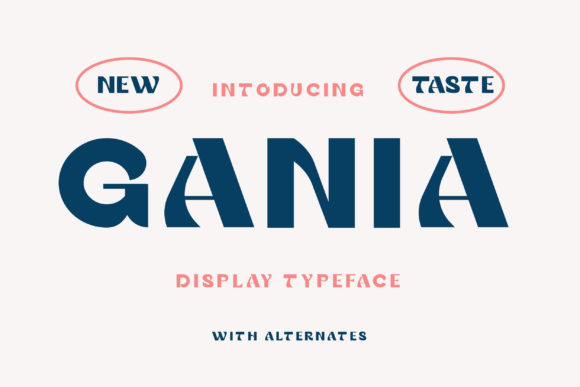
Prepare to be mesmerized by Gania Display, the font that shatters the boundaries of ordinary typography. This captivating display font is a symphony of modern aesthetics and vintage charm, effortlessly commanding attention and leaving an unforgettable impression. Its meticulously crafted curves evoke a sense of elegance and sophistication, while its bold presence exudes strength and confidence.
Immerse yourself in the boundless creative possibilities that await with Gania Display. From striking logos and captivating posters to alluring social media posts and captivating website designs, this versatile font seamlessly adapts to your every need. Let your imagination soar as you witness your designs transformed into captivating masterpieces.
Crafting captivating designs has never been simpler. Gania Display's PUA encoding grants you effortless access to a treasure trove of glyphs and swashes, empowering you to unleash your creativity without limits. Unleash your inner artist and weave a tapestry of visual delight, where every letter dances with grace and charm.
Gania Display beckons you to embrace a world where typography transcends the ordinary, a world where your designs radiate brilliance and leave an indelible mark on the hearts and minds of your audience. Experience the transformative power of Gania Display and ignite the flame of creativity within you.